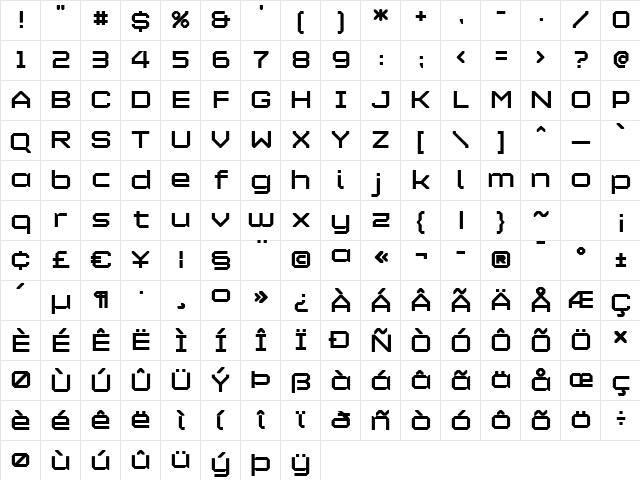
Maetl Bold
| Foundry | YouWorkForThem |
| Designer | Michael Cina |
Design Context for Maetl Typeface
Maetl is a composed and adaptable typeface that performs quietly and consistently across a wide range of design contexts. The heavy weight commands attention and anchors typographic hierarchies.